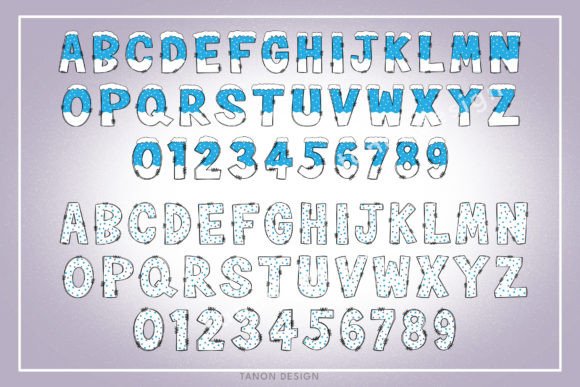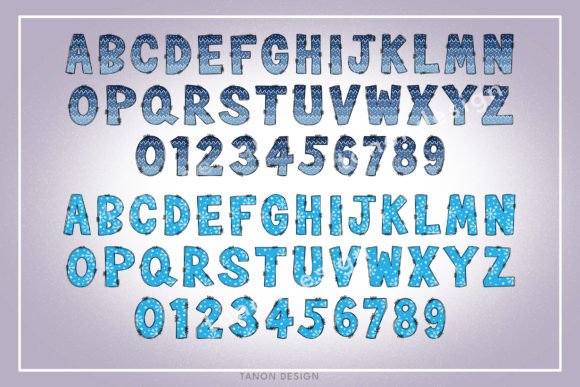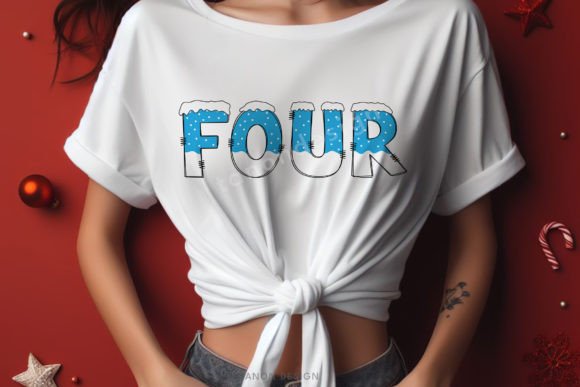
The Magic of Four Snow Font: A Designer’s Delight
Ah, the joys of searching for the perfect font for a Christmas-themed design project! I recall a particularly frustrating experience when I was working on a festive t-shirt design for a client. I had a clear vision of what I wanted to create, but the fonts I had at my disposal just weren’t cutting it. That was until I stumbled upon the Four Snow Font, a game-changer that has since become a staple in my design toolkit.
- 🎉 The font looks fantastic on Christmas-themed designs, including t-shirt designs, mug designs, digital designs, crafts, cards, and more.
The Designer Inspiration Behind Four Snow Font
The Four Snow Font was designed with the winter season in mind. The creator, a talented typographer, wanted to capture the essence of snow and ice in a font that’s both elegant and playful. The result is a font that’s perfect for designers, crafters, and hobbyists who want to add a touch of winter wonder to their designs.